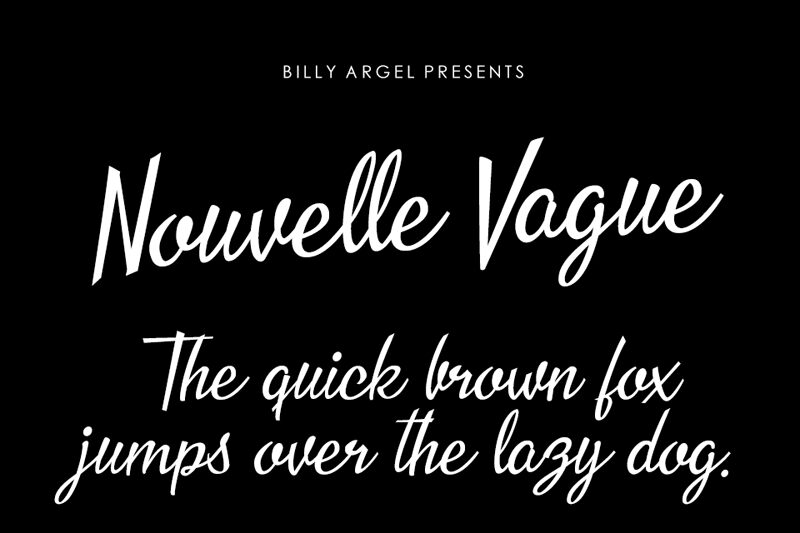
Nouvelle Vague is a captivating brush font that exudes a sense of effortless elegance. Designed by the talented Billy Argel, this light-weighted script boasts a fluid, dynamic movement that evokes the essence of French-inspired sophistication. With its seamless, intertwined letterforms and stylish flourishes, Nouvelle Vague lends itself beautifully to a wide range of applications, from editorial design and fashion branding to wedding invitations and luxury packaging.
Its refined, yet approachable aesthetic makes it a versatile choice for projects seeking to convey a touch of timeless charm and refinement.